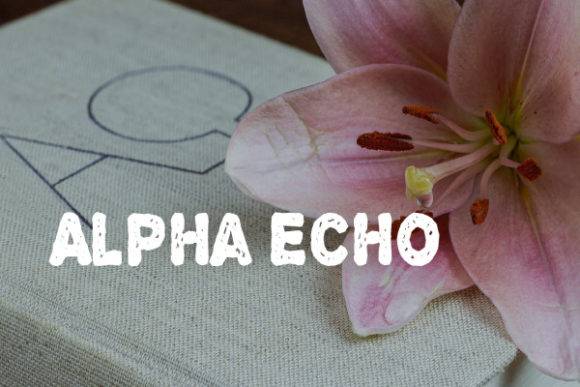
Alpha Echo Font for Crafting, Logos and Print Projects
Alpha Echo is a strong, all-caps display font that blends military style with digital precision. Designed for standout titles and powerful visuals, it’s ideal for crafting, branding, and printed materials that require authority and boldness.
This font entity delivers geometric edges and consistent spacing, making it a favorite for badges, patches, t-shirts, and promotional gear. Its design stands up in both physical and digital contexts, ensuring versatility across media.
Whether you're creating tactical designs, sports branding, or DIY merchandise, Alpha Echo brings visual strength and structure.
- Bold t-shirts, hats, and merchandise
- Logo systems and typographic branding
- Posters, flyers, and advertising collateral
- Stickers, decals, and promotional prints
- Personalized signage and stencils
- Strong geometric lines with bold presence
- Perfect for military, tactical, or sport designs
- High visibility in print and cut applications
- Great for DIY and professional use alike
Q: What kind of font is Alpha Echo?
A: Alpha Echo is a bold, digital-inspired display font suited for crafting, logos, and print design. Its unique geometric shapes and vibrant personality make it perfect for attracting attention in any project. Designers looking to add a touch of creativity to their work will find Alpha Echo to be an ideal choice. This aqua wow font for crafting elevates any design, making it both playful and professional.
Q: Is it suitable for physical product printing?
A: Yes. It’s great for screen printing, vinyl cutting, heat transfer, and stencil work.
| Feature | Alpha Echo | TacticalGrid Bold | CombatType Pro |
| Font Style | Digital military display | Block tech display | Stencil-cut bold |
| Best Uses | Logos, print, merchandise | Tech packaging, shirts | Signage, gear, stencils |
| Print & Craft Ready | Yes - all craft types | Great for shirts & patches | Best for signage |